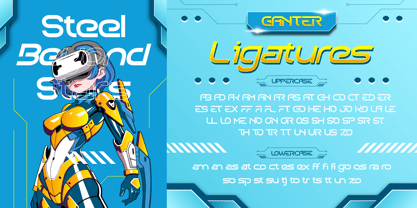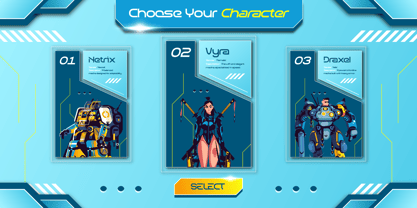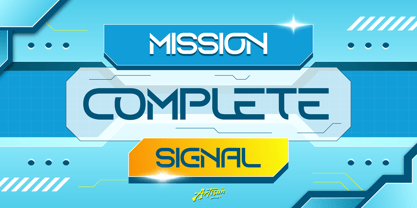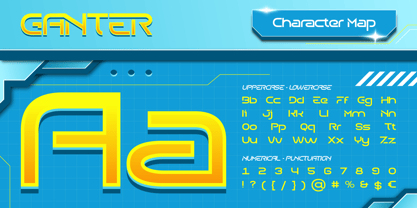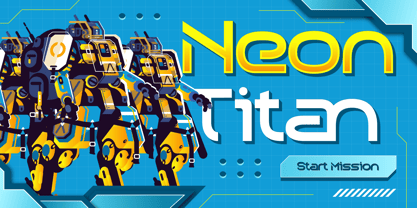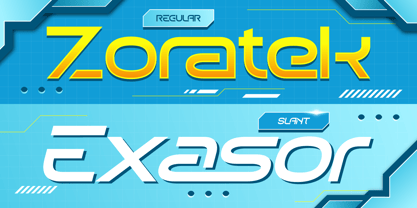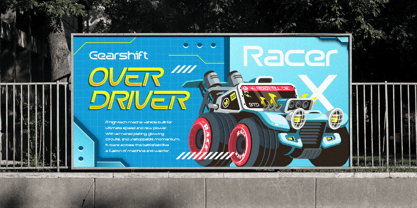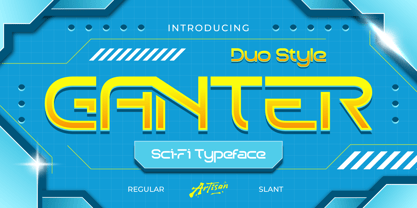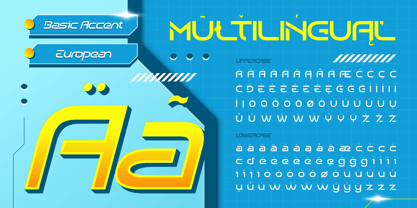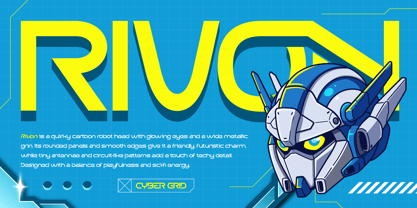
Ganter
by Artisan Themes
The Ganter Font Family was designed by Meidy Meichico and published by Artisan Themes. Ganter contains 2 styles and family package options. More about this family
Meet Ganter, a sci-fi typeface that looks like it just escaped from a spaceship dashboard. With its bold geometric shapes and sharp futuristic vibe, this font instantly brings your designs into the future (without needing a time machine). Whether you’re designing for gaming covers, tech brands, posters, or just want your text to look like it came from another galaxy – Ganter has you covered. It comes in Regular and Slant, so you can go steady or add some extra speed to your typography. Perfect for logos, headlines, or even that one friend who insists on making their Wi-Fi name sound like a secret alien code. So, if your design is stuck in 2025, let Ganter teleport it straight into the future.
Designers: Meidy Meichico
Foundry: Artisan Themes